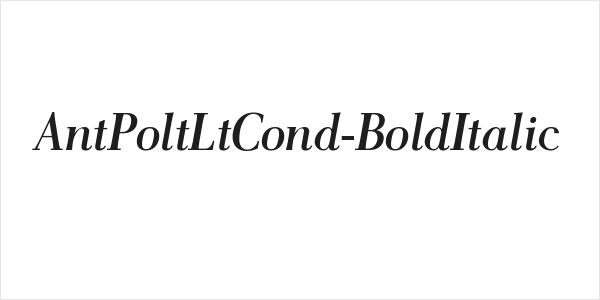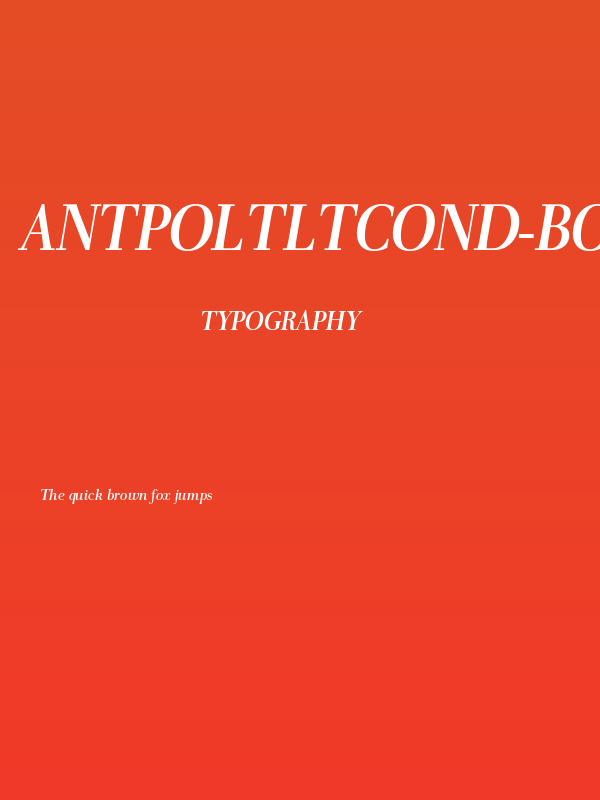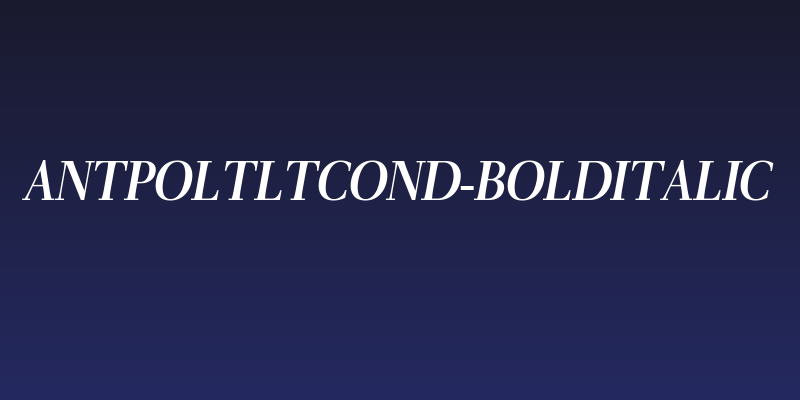
AntPoltLtCond-BoldItalic Font
AntPoltLtCond-BoldItalic Description
This font exhibits a refined and elegant style characterized by its italicized and bold appearance. The letters are slightly condensed, giving it a sophisticated and compact look. The serifs are pronounced yet delicate, adding a touch of classic elegance. The strokes vary in thickness, providing a medium contrast that enhances readability while maintaining a stylish flair. The numerals and special characters are designed with the same attention to detail, ensuring consistency across all glyphs. This font is versatile, suitable for both formal and creative applications.
| Use Case | Headlines, Logos, Editorial design |
| Proposed Projects | Ideal for editorial design, luxury branding, wedding invitations, and high-end product packaging. |